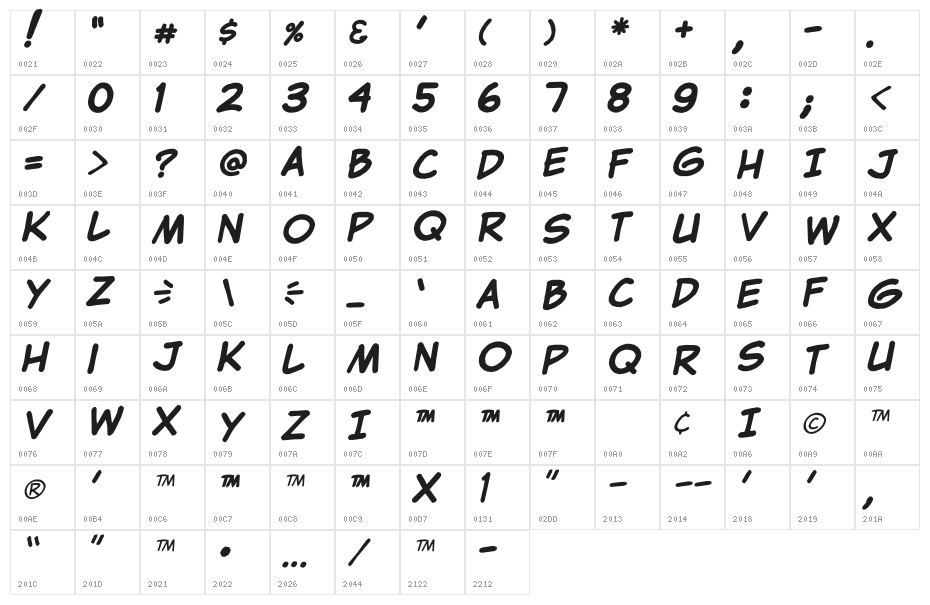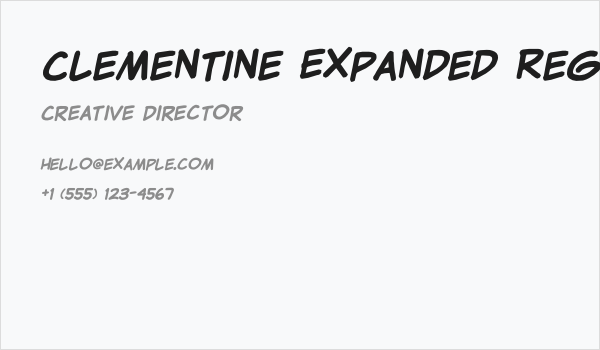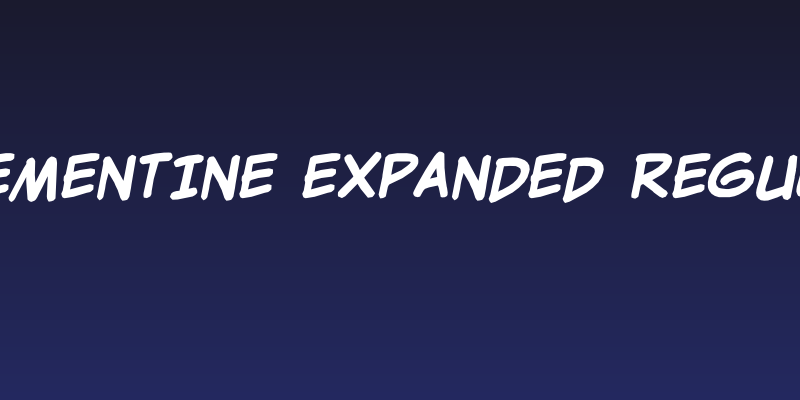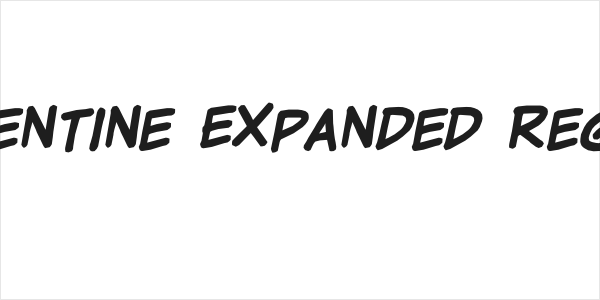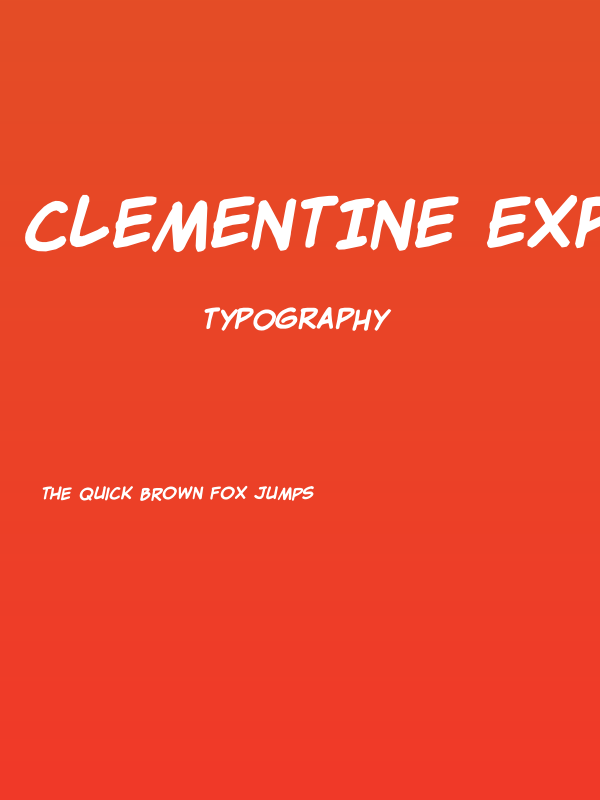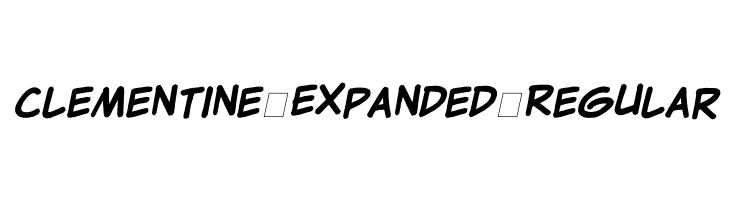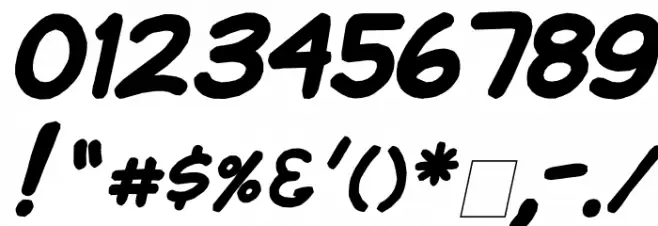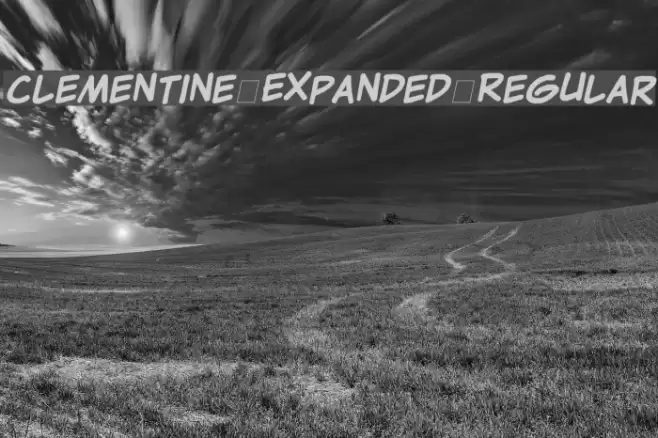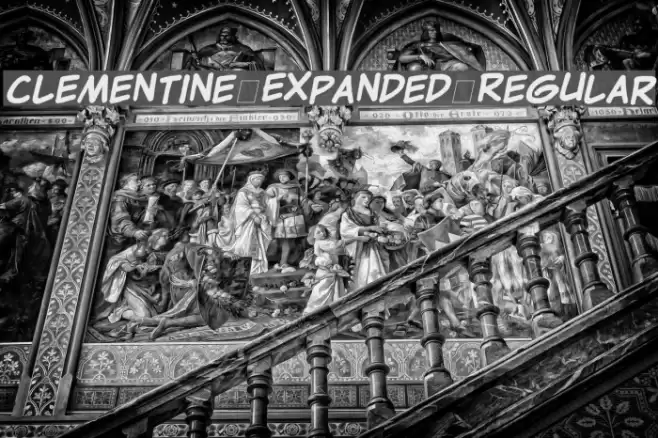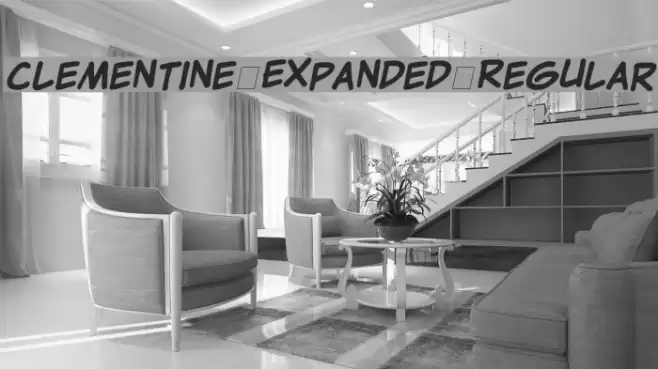
Clementine Expanded Regular Font
| Ширина | Expanded |
| Общий стиль | Casual, Playful |
| Область применения | Headlines, Branding, Invitations |
| Рекомендуемые проекты | Ideal for projects that require a personal touch, such as greeting cards, invitations, or branding materials. Its bold style also suits headlines and posters. |